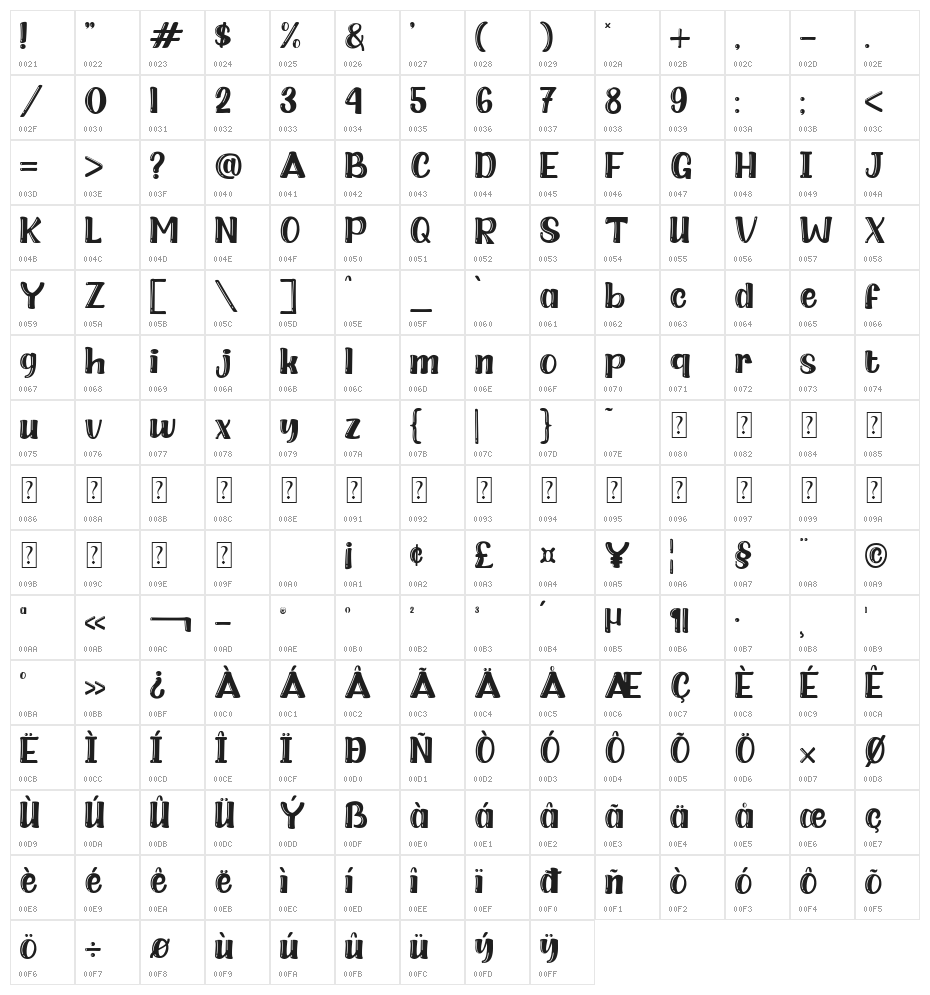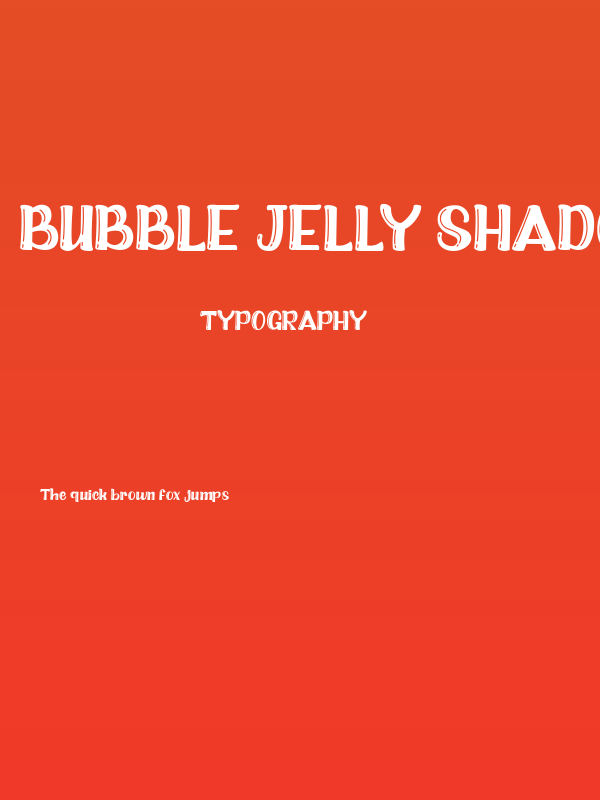
Bubble Jelly Shadow Font
Bubble Jelly Shadow Description
This playful and bold font features a unique bubble-like design with a shadow effect, giving it a three-dimensional appearance. The characters are rounded and have a whimsical, cartoonish style, making them stand out with a fun and lively personality. The uppercase and lowercase letters maintain a consistent style, with the shadow adding depth and a sense of movement. Numbers and special characters are designed to match the playful theme, ensuring a cohesive look across all text elements. The font's boldness and distinctive style make it ideal for projects that require a touch of creativity and fun.